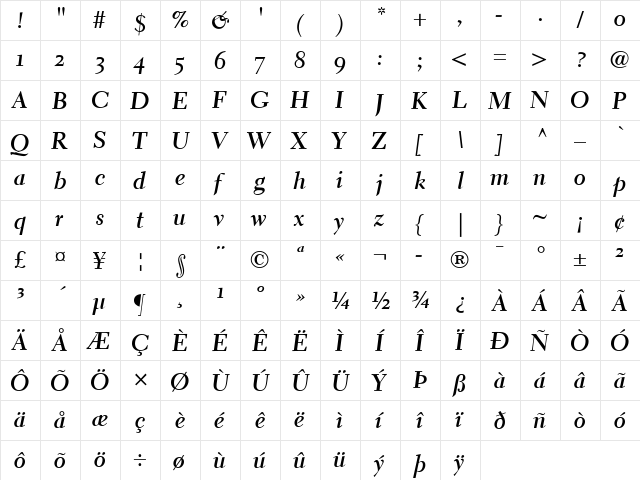
Electra LH RegularOsF Bold Italic
Design Context for Electra LH RegularOsF Typeface
Electra LH RegularOsF is a composed and adaptable typeface that performs quietly and consistently across a wide range of design contexts. Its italic angle brings a sense of urgency and motion to the letterforms. Its bold stroke weight gives it real presence on the page.
Pro Tip: Try Electra LH RegularOsF for annotation and caption copy alongside an upright companion — the contrast in angle creates a dynamic but ordered typographic system.